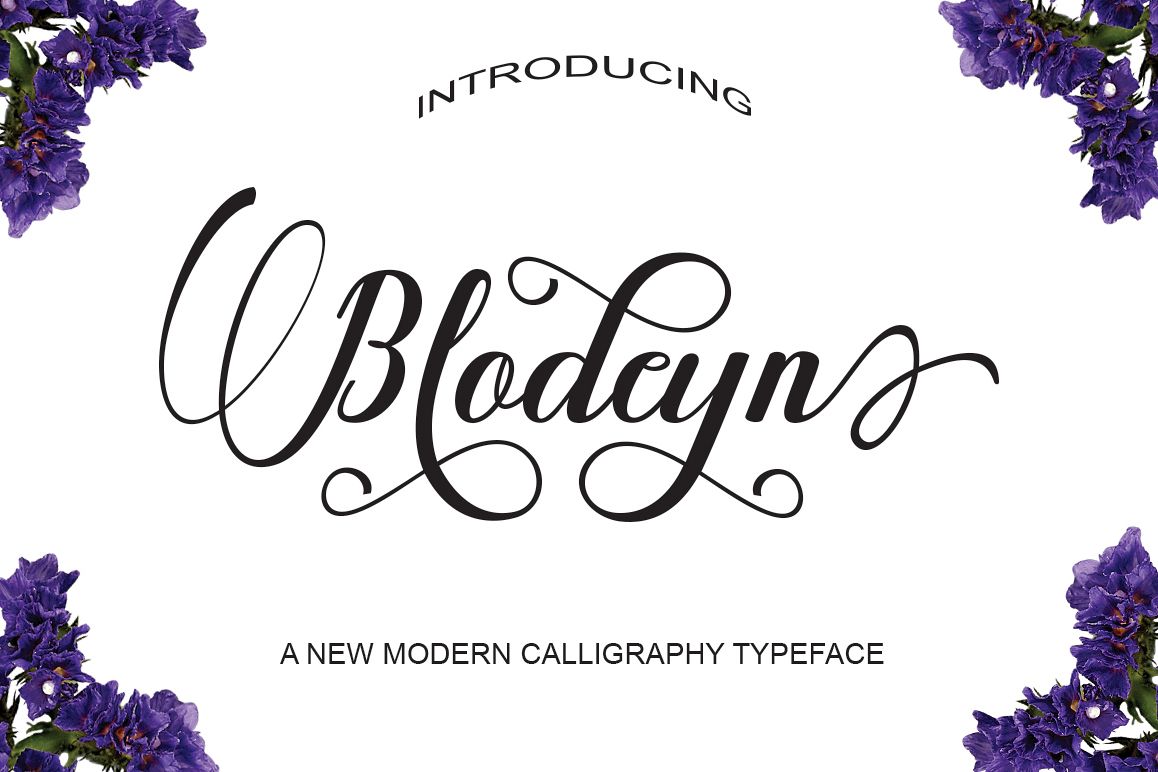
Blodeyn
Blodeyn Script
Blodeyn Script is a stylish calligraphy font that features a varying baseline, smooth line, classic and elegant touch. Can be used for various purposes.such as headings, signature, logos, wedding invitation, t-shirt, letterhead, signage, lable, news, posters, badges etc.
The Features of this fonts is:
* Standart ligatures
* Stylistic Alternates
* PUA Unicode (Private Use Areas)
* Swash